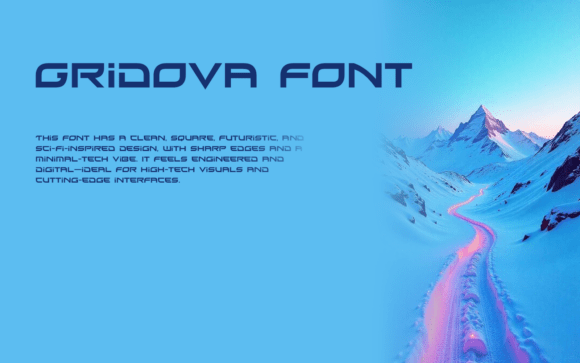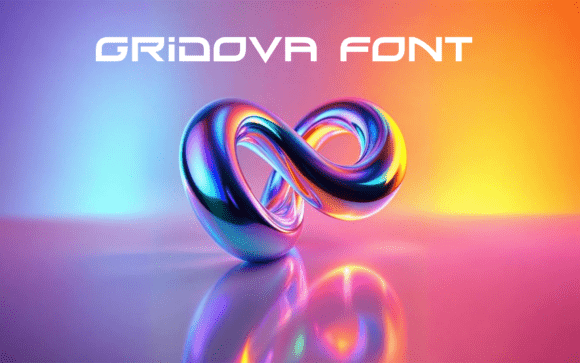
Introduction to Gridova Font
Meet Gridova – the font for a future written in code.
Its angular structure and clean form bring digital clarity to your branding Perfect for tech, AI, and next-gen products that demand precision and presence.
Key Features of Gridova Font
Why Choose Gridova Font?
Gridova Font offers exceptional quality and versatility, making it a valuable addition to your design toolkit. Whether you’re creating for personal projects or commercial use, Gridova Font delivers professional results.